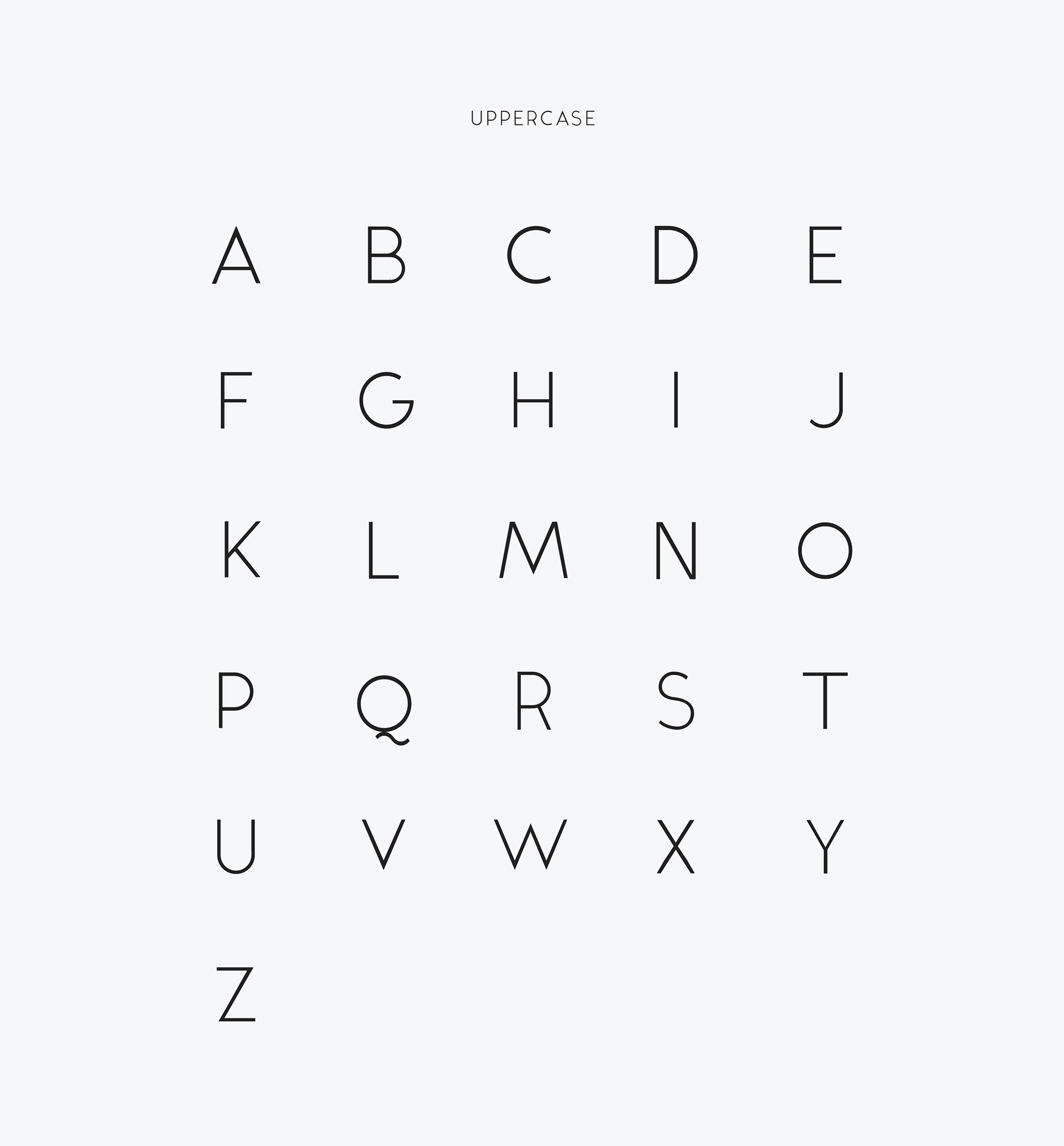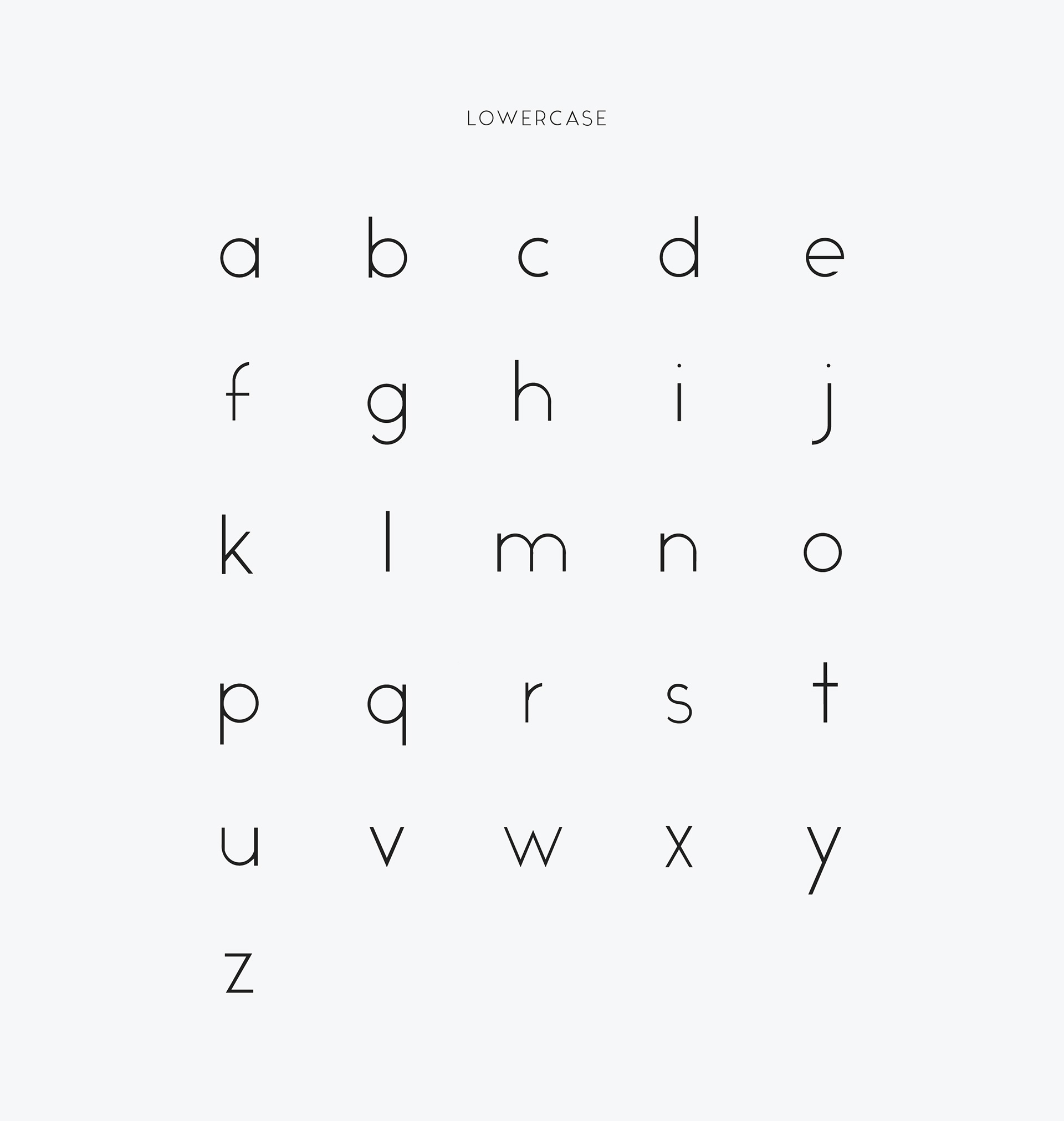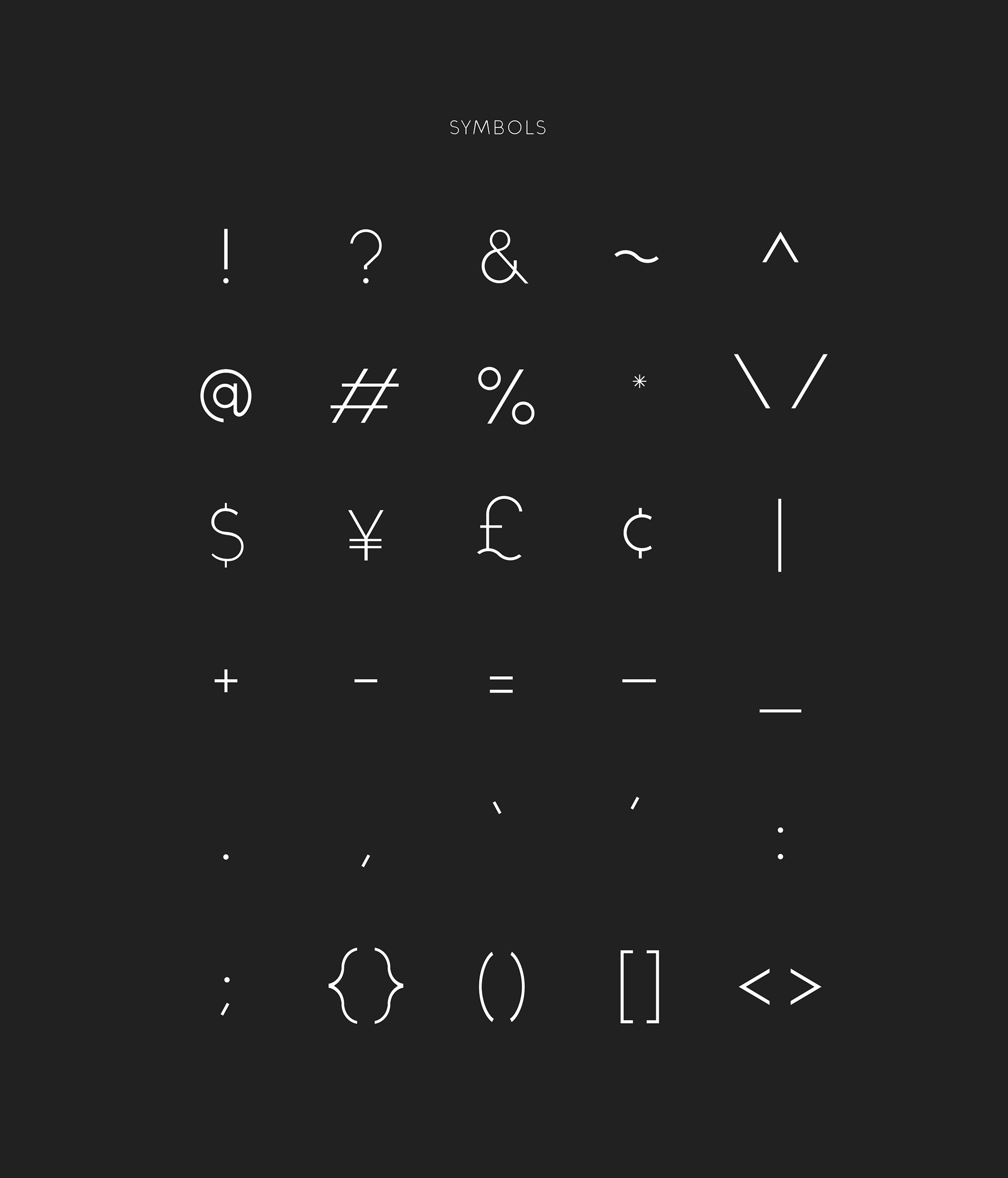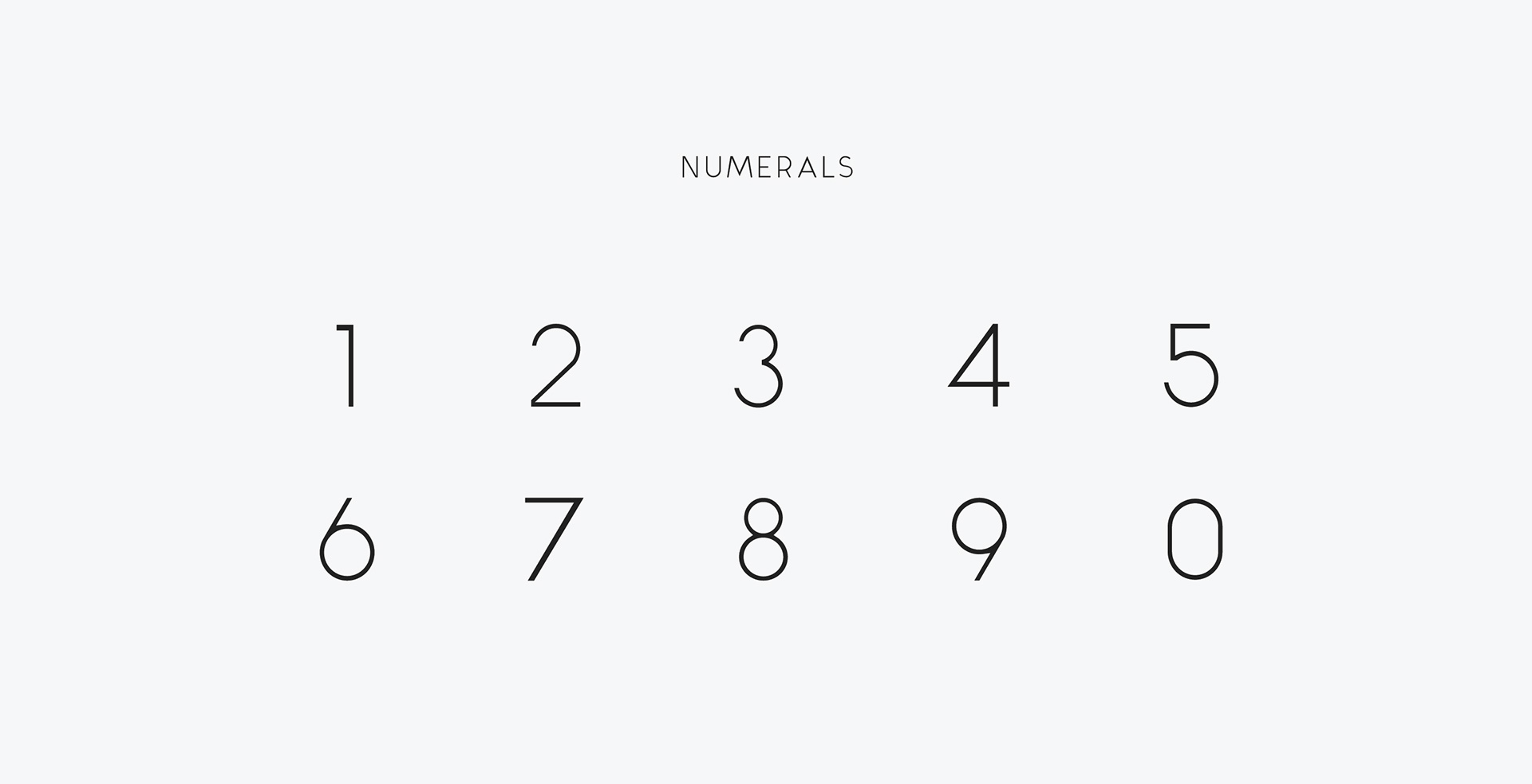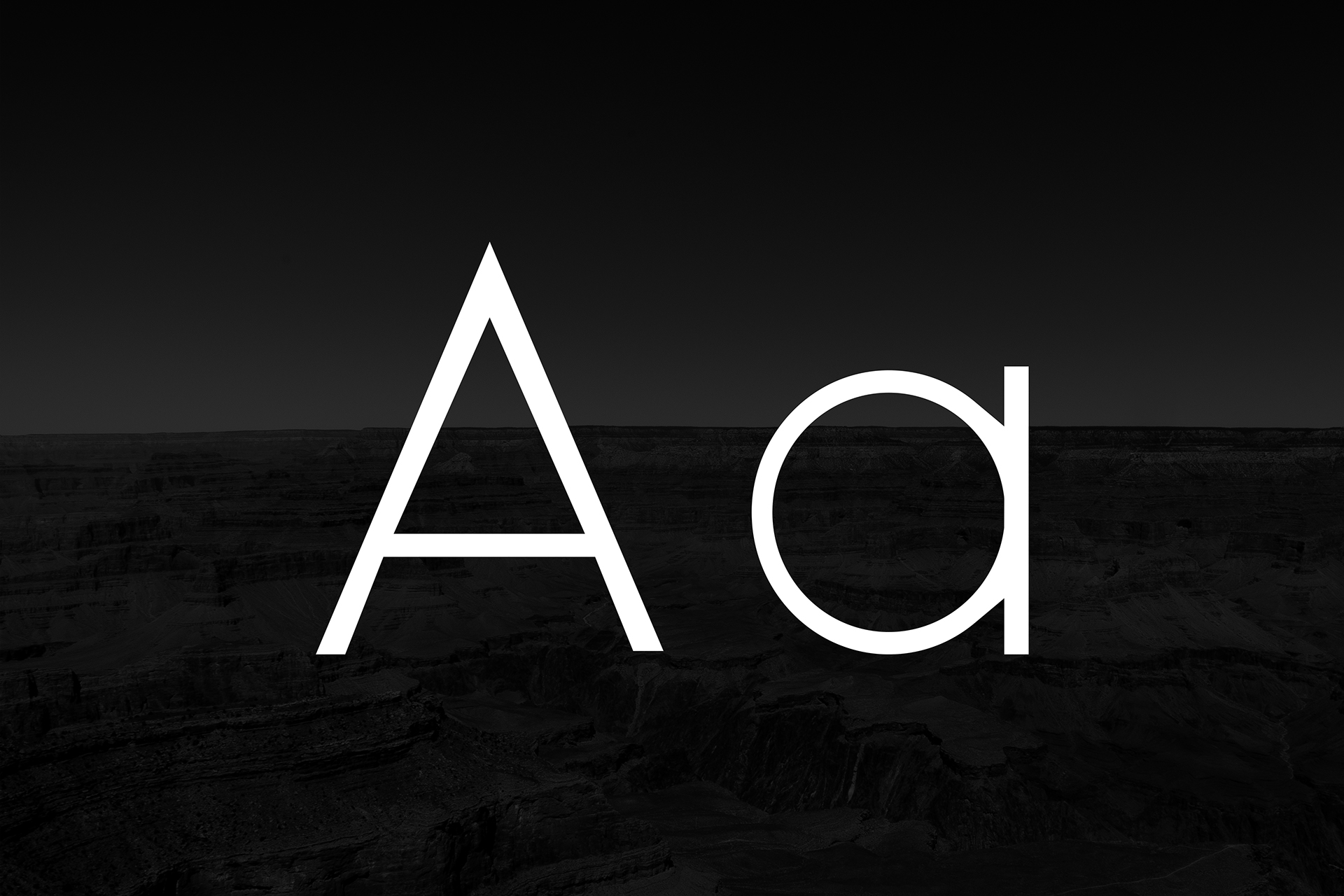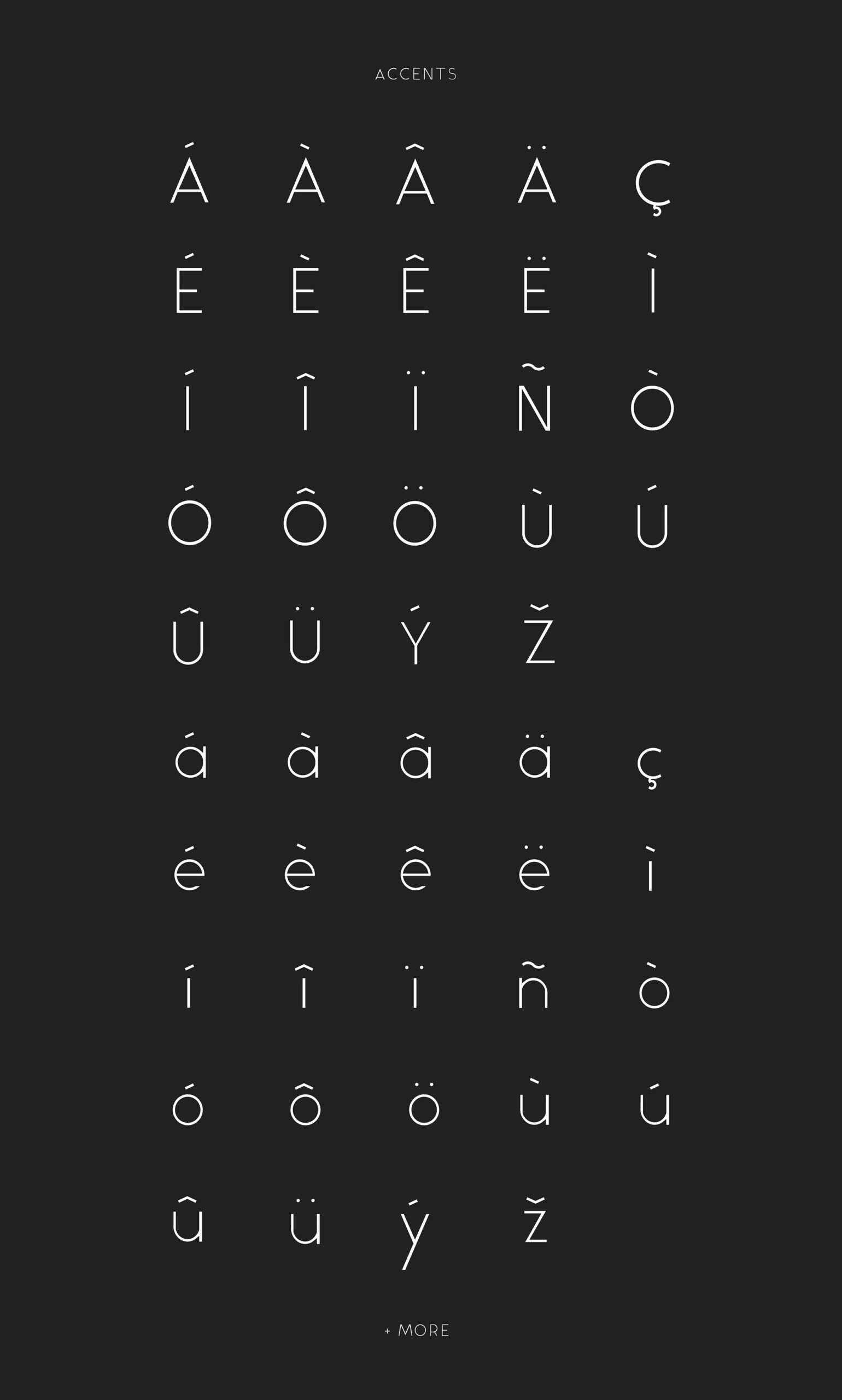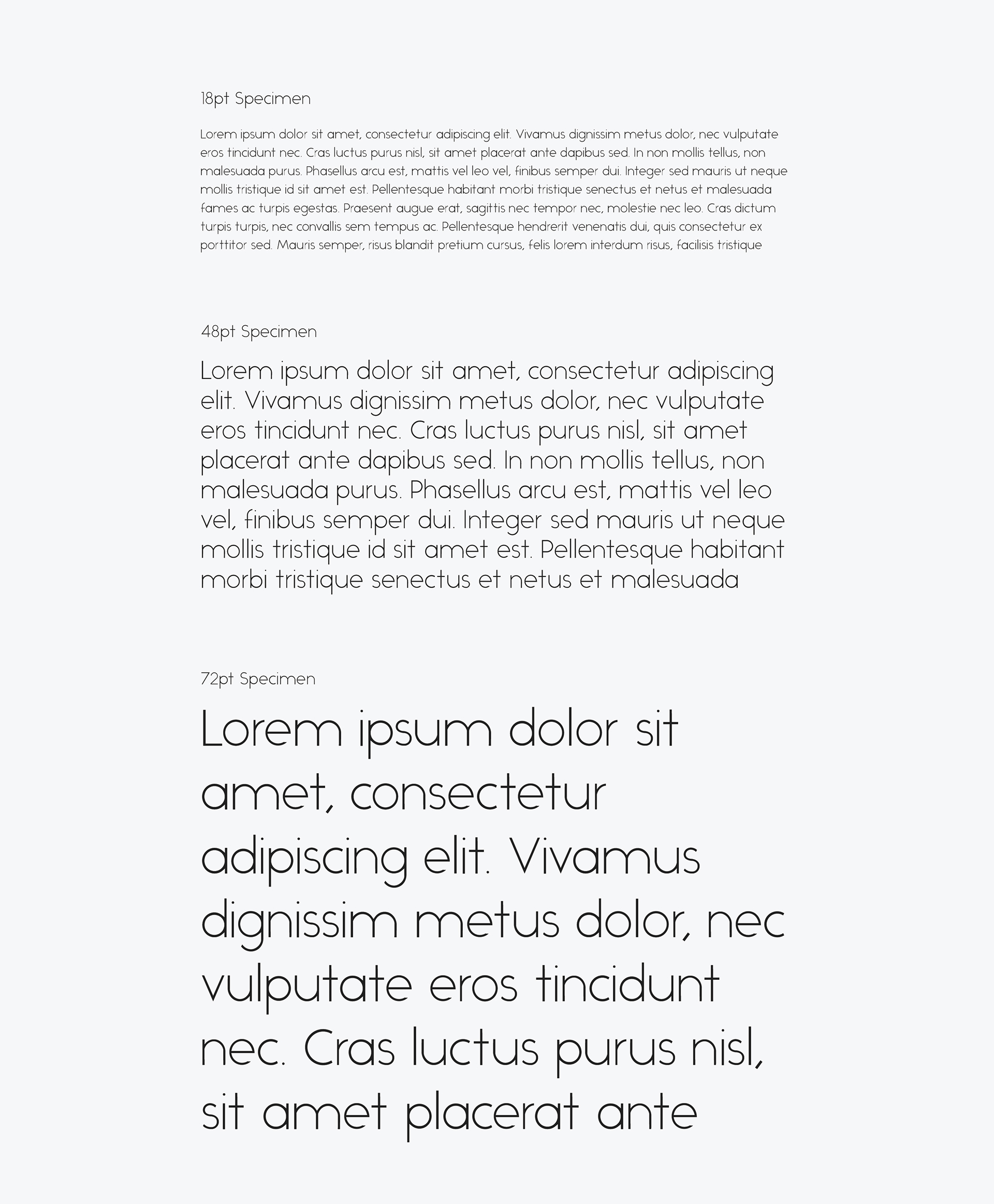
Designed by Matt Ellis, Alcubierre is a geometric sans serif typeface stepping in the foot prints the original font Ikaros. Using the advantages to make a clean minimal font, it works for a variety of uses.